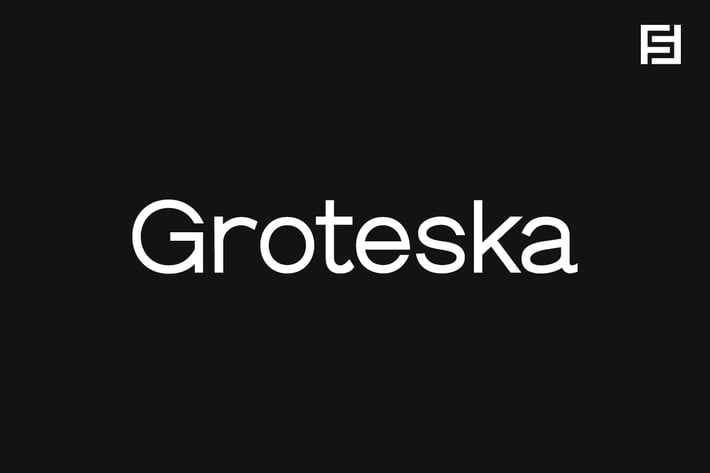
GROTESKA - Minimal & Modern Sans-Serif Typeface
Groteska is a modern & minimal sans-serif typeface inspired from some popular Swiss designs, having traditional grotesque oriented type characteristics while being clean & minimalist by nature. The typeface comes with a total of 14 fonts spreading between 7 weights featuring 7 uprights and matching italics for each weights.
Handcrafted and designed with powerful opentype features in mind, each weight includes extended language support including Western European & Central European sets.
Groteska is a perfect typeface for graphic design, web, print and any display use. The typeface could be perfect choice for logo / logotype design, branding, marketing graphics, banners, posters, signage, corporate identities as well as for editorial design. Adding extra letter-spacing will make this font perfect for minimal headlines and logotypes as shown in demo graphics.
Designed by Jean and Lis at Fontastica, produced by Fontastica.